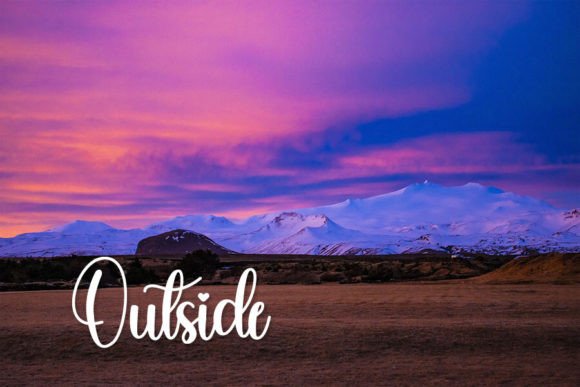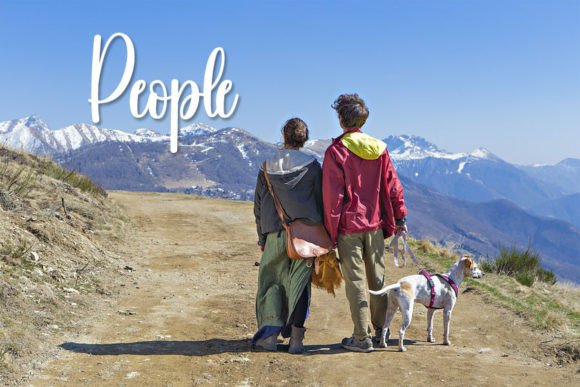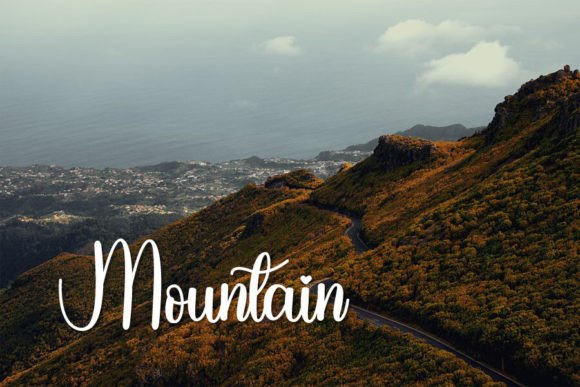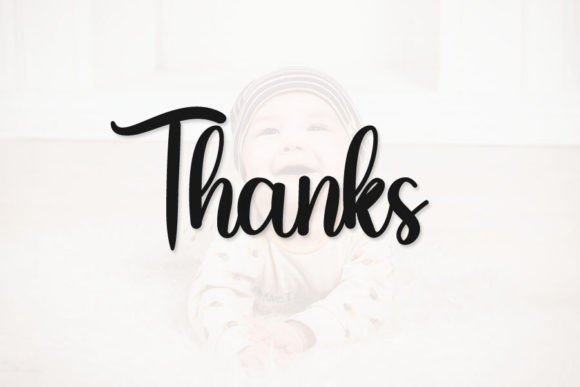
Give Your Designs a Touch of Whimsy with Baby Font
Have you ever been working on a design project, and suddenly, you’re stuck? You’re brainstorming ideas, flipping through fonts, and scrolling through inspiration boards, but nothing seems to click. That’s when I find myself thinking back to my childhood – the carefree days of doodling and drawing with a smile. It’s in these moments that I remember the magic of handwritten fonts, and that’s where Baby Font comes in.
Baby Font is a charming, handwritten font designed to bring a touch of personality to your designs. Whether you’re creating a brand identity, packaging, or a wedding invitation, this font is the perfect addition to your toolkit. Its versatility and charm make it a valuable asset for designers looking to add a unique touch to their work.
Baby Font Key Features
- Unique Character Set: Baby Font features a unique set of characters, including baby-themed symbols, icons, and ornaments, making it ideal for designing baby-related products and materials.
- High-Quality Design: The font is designed with a modern, playful aesthetic, featuring smooth lines, rounded edges, and a soft, cursive feel that is perfect for creating a warm and inviting atmosphere.
- Legibility and Readability: Baby Font is designed to be highly legible and readable, even at small font sizes, ensuring that your text remains clear and easy to understand.
Baby Font Review
Overall, I’m a bit torn on the “Baby Font” – it has some nice qualities, but also some notable limitations.
✨ One of the things I like about “Baby Font” is its playful, whimsical feel. The font is designed to evoke a sense of innocence and youth, and it does a great job of capturing that vibe.
✨ Another plus is the font’s versatility – it works well for both body text and headlines, and can be used in a variety of contexts, from children’s books to nursery decor.
- ⚠️ One of the biggest drawbacks of “Baby Font” is its lack of legibility at smaller sizes. The font becomes blurry and difficult to read when used in text that’s too small.
- ⚠️ Another limitation is the font’s limited character set. While it includes all the standard letters and numbers, it’s missing some more advanced characters, such as accented letters and punctuation marks.
I think “Baby Font” is a solid choice for projects that require a playful, childlike feel. However, it may not be the best choice for projects that require high legibility or a wide range of character options.
Tips for Getting the Most Out of Baby Font
Here are some tips for getting the most out of Baby Font:
1. Use it to add a playful touch to your designs.
2. Experiment with different font sizes and colors to create a unique look.
3. Combine Baby Font with other fonts for a creative look.
Some common use cases for Baby Font include:
1. Children’s products and packaging.
2. Baby and parenting-related designs.
3. Playful and whimsical designs for any industry.
Alternatives to “Baby Font” for Designers
Lato is a sans-serif font designed by Łukasz Dziedzic. It is a great alternative to Baby Font as it provides a similar clean and modern look. Lato is ideal for use in body text and headings where a clear and legible font is required. Compared to Baby Font, Lato has a more professional and sophisticated feel, making it suitable for a wider range of applications.
Montserrat is a sans-serif font designed by Julieta Ulanovsky. It is a great choice for designers looking for a font with a similar urban feel to Baby Font. Montserrat is ideal for use in titles and headings where a bold and attention-grabbing font is required. Compared to Baby Font, Montserrat has a more geometric and modern feel, making it suitable for use in digital and print applications.